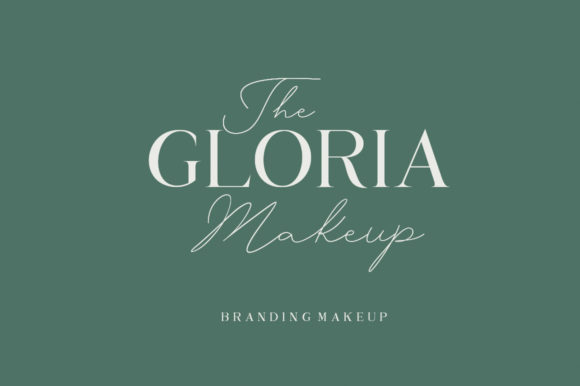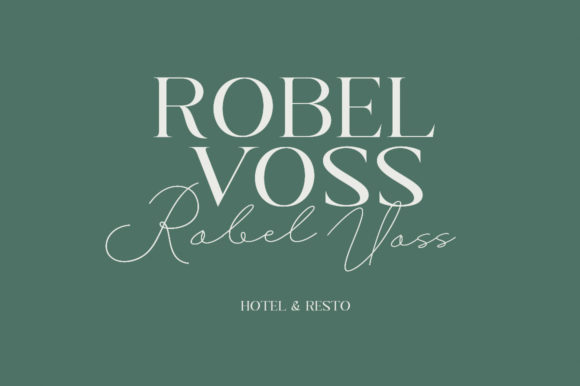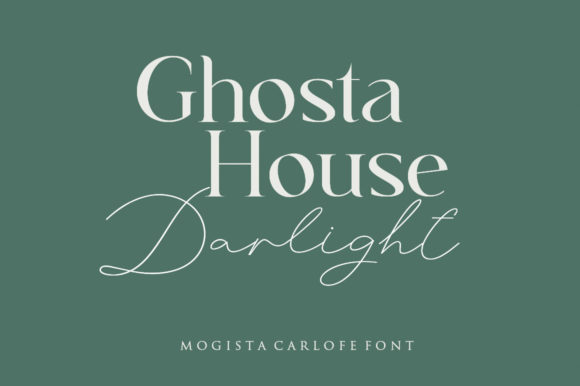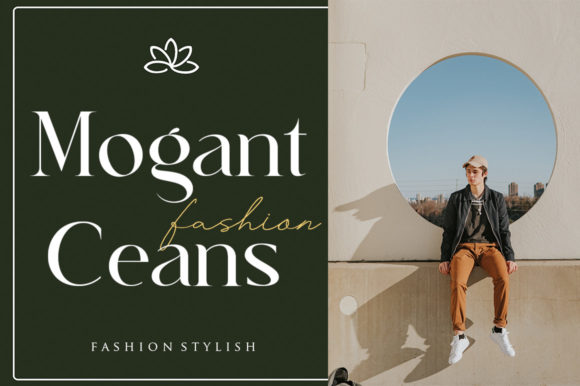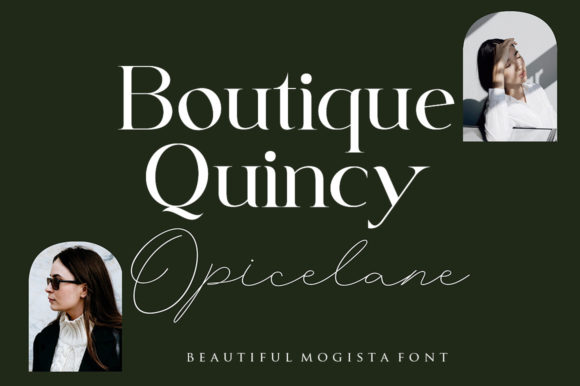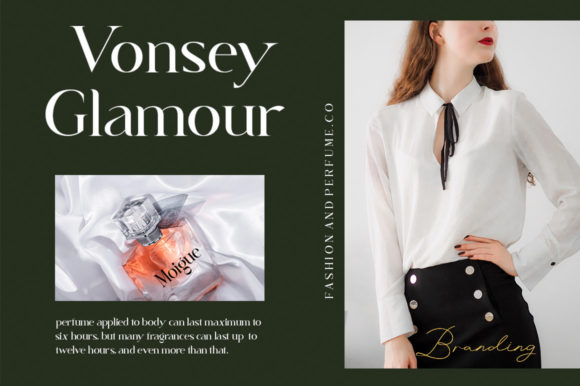
Introduction to Mogista Carlofe Font
Mogista Carlofe is a stunning and comprehensive duo font (script and serif), ideal for giving your projects a branded but friendly feel.
The two included styles can be combined together perfectly but are also beautiful on their own .
Key Features of Mogista Carlofe Font
Why Choose Mogista Carlofe Font?